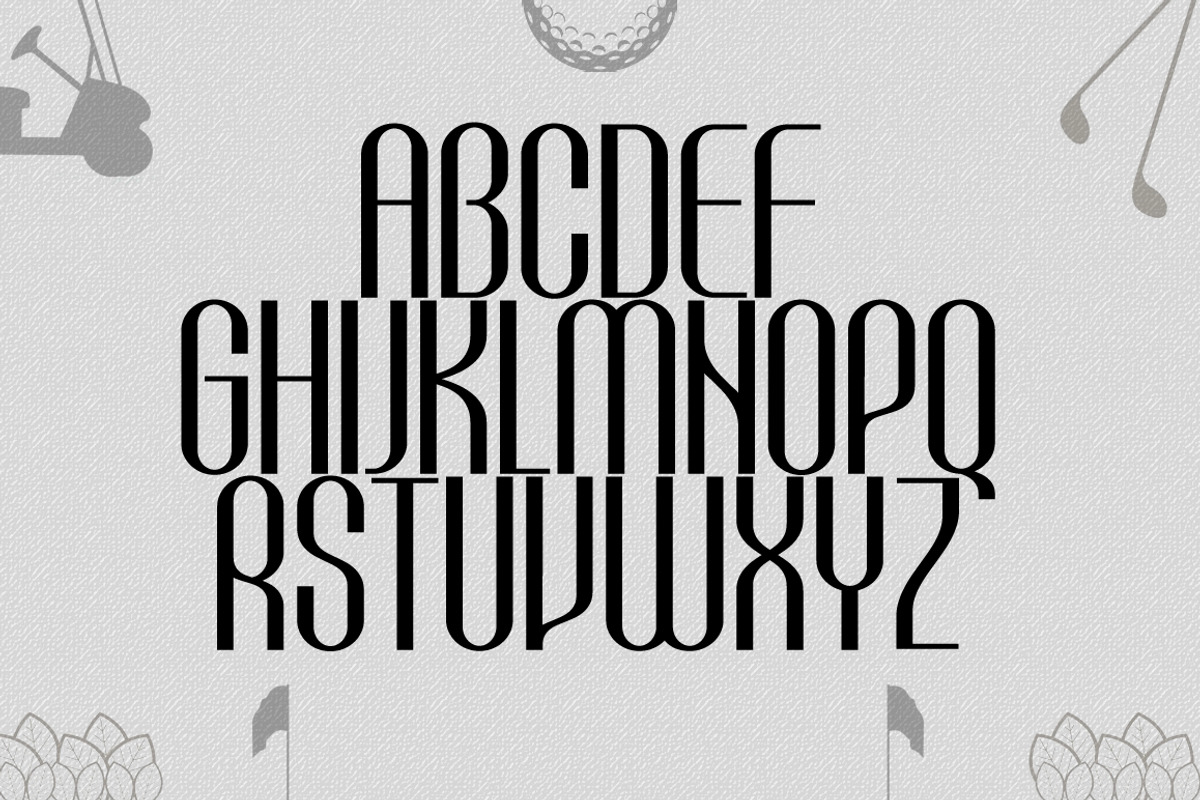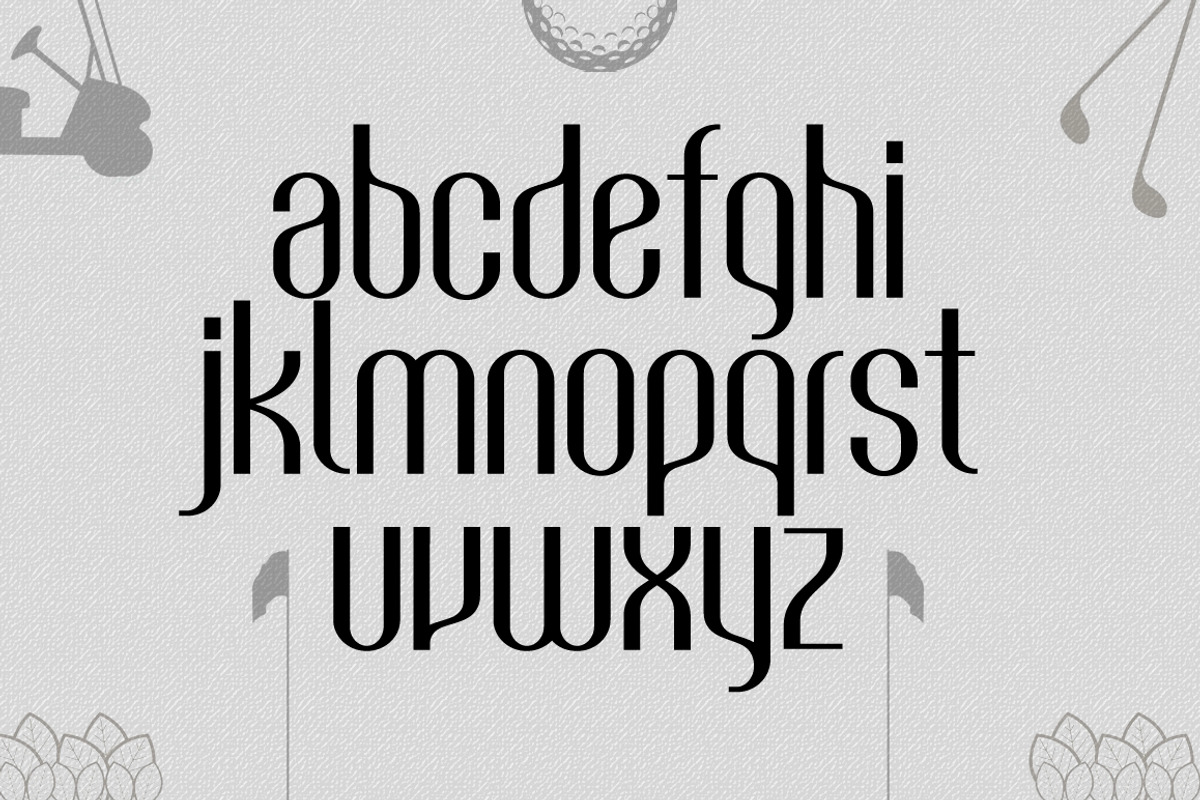
Golf TrueType Font
Golf TrueType Font by alphadesign is a font selected for branding, posters, packaging, typography.
- Golf TrueType Font is a fashionable, elegant font, suitable for advertising, design fashion, golf products, contains 227 glyphs.
Why Golf TrueType Font is worth a look
Golf TrueType Font by alphadesign fits naturally into Branding, posters, packaging, typography.